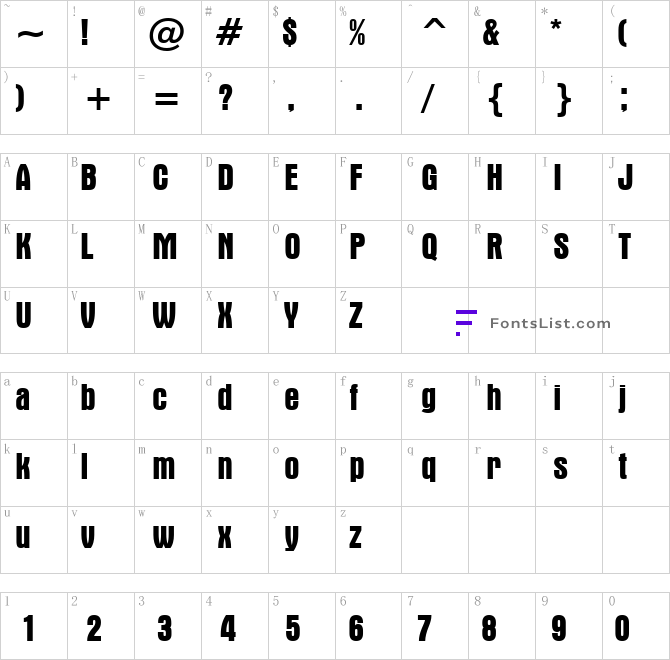
- Font Name:Aurora BdCn BT
- Subfamily:Aurora Bold Condensed, Swiss 939
- Full Name:Aurora Bold Condensed BT
Aurora-Bold-Condensed-BT.ttf is a very beautiful artistic font, Aurora-Bold-Condensed-BT.ttf is widely used in the design and printing of various books and pictures,Aurora-Bold-Condensed-BT.ttf has a strong visual impact,Aurora-Bold-Condensed-BT.ttf is a commonly used font in newspapers, magazines and books, and is used in posters, e-commerce Poster design, store design, logo design, font design and other fields.Aurora-Bold-Condensed-BT.